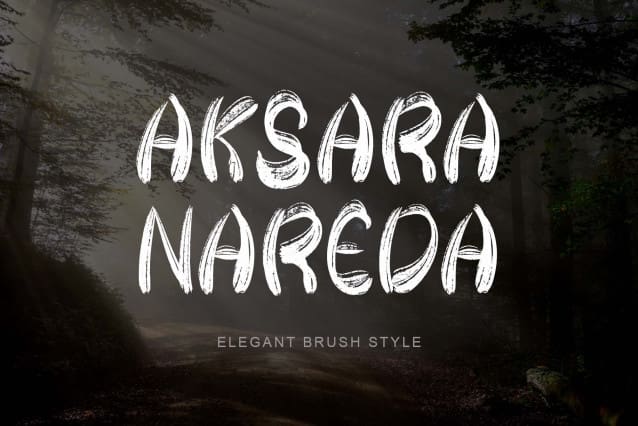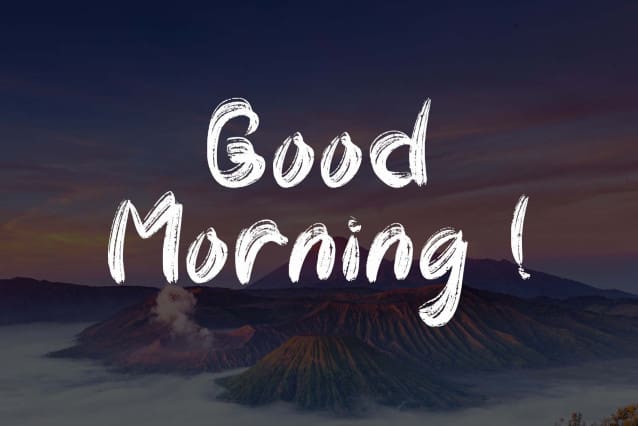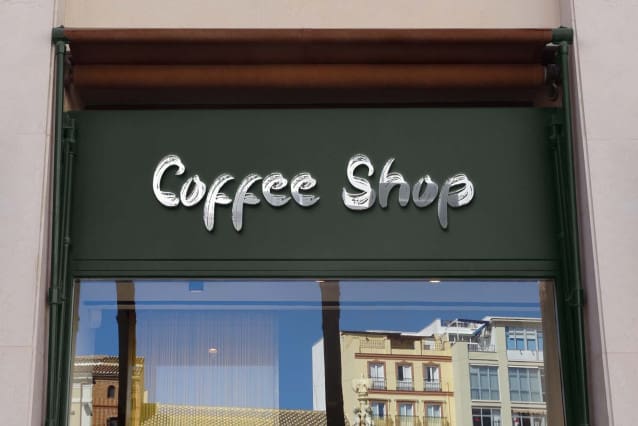
Aksara Nareda Font
Aksara Nareda Font is an authentic hand-brush display font with imperfections. It is a perfectly paired complimentary marker font and a super handy set of swashes. This font looks modern, readable, stylish, strong, cool, bold, catchy, and easy to use. Black Era is a great choice for watermarks on photography, logo design, quotes, album cover, magazines, t-shirts, and many other design projects. Black Era is here to take your work to a high level!